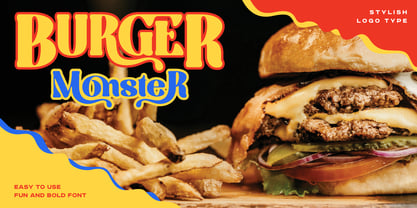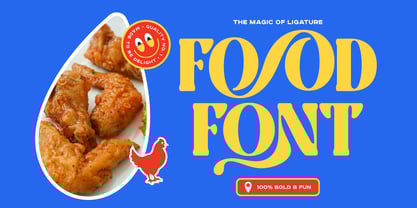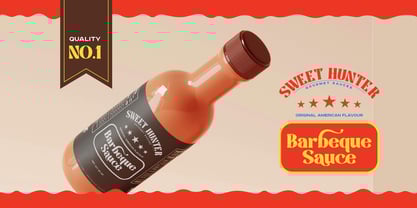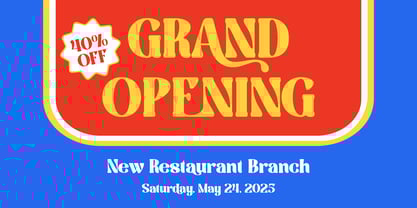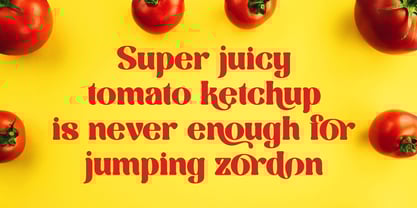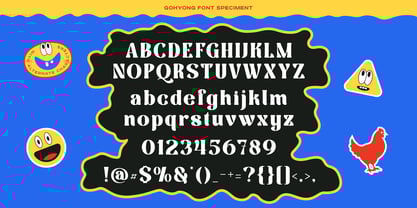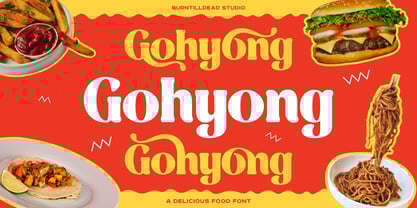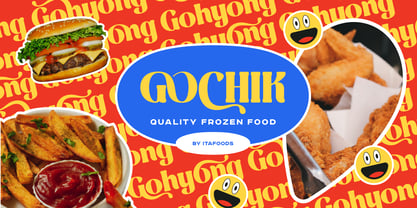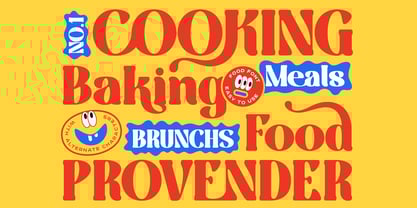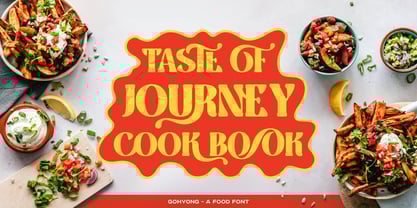
Gohyong
by Burntilldead
The Gohyong Font Family was designed by Eric Kurniawan and published by Burntilldead. Gohyong contains 2 styles and family package options.
Meet Gohyong, a delicious food font. A fun and bold font that combines modern design with a touch of classic. Gohyong offers a clean and sophisticated look that will make your designs stand out. Gohyong is more than just a font; its a design tool that help you create with confidence and style. Also this font include with alternates, ligatures and multilingual support. This font perfect for branding, logo type, poster, banner, web design, editorial design, social media, restaurant menu design and many more.
Features:
• A - Z set (Uppercase & Lowercase)
• Number
• Punctuation
• Alternate
• Ligature
• Multilingual